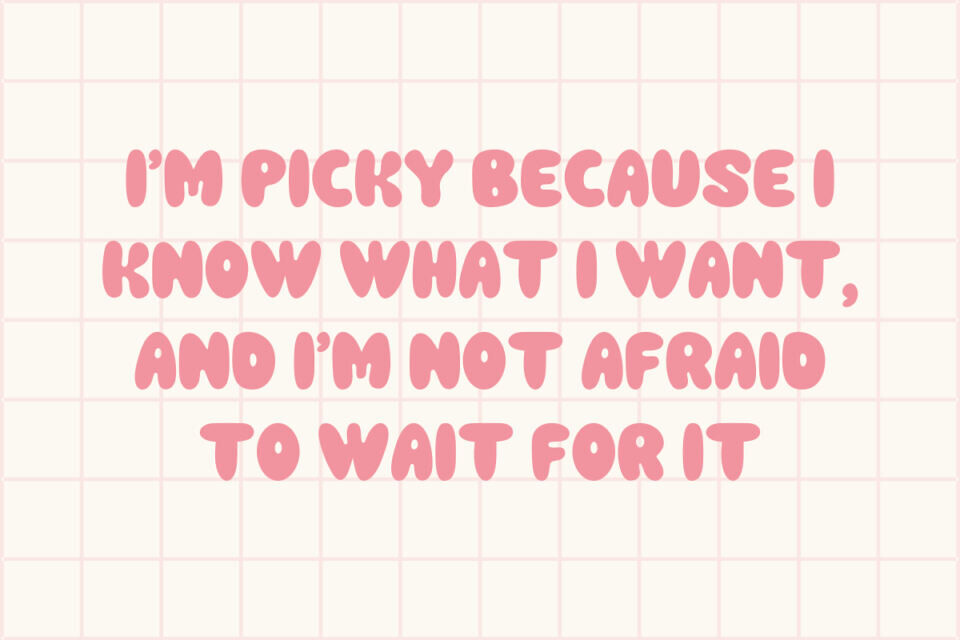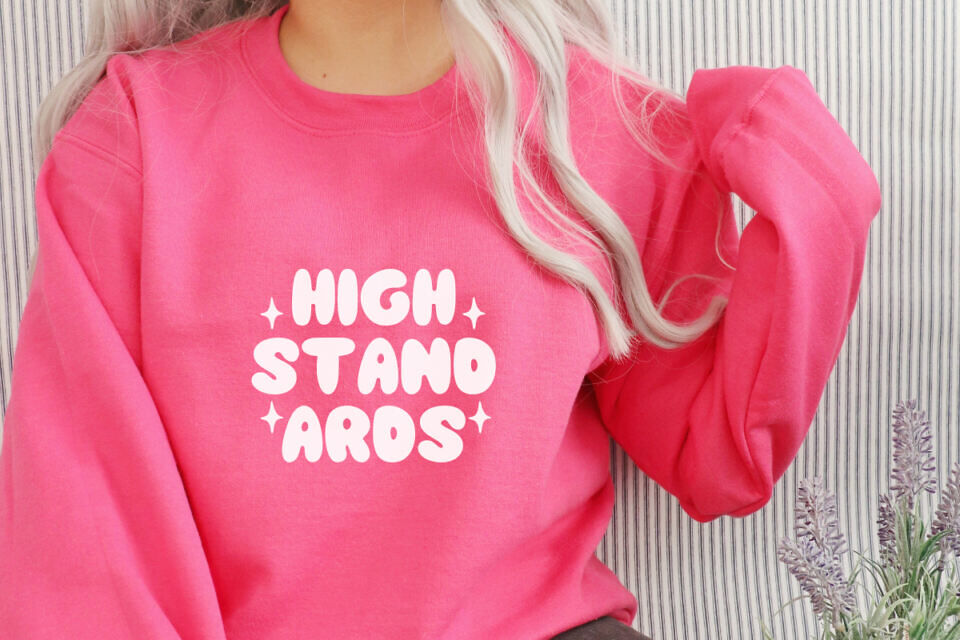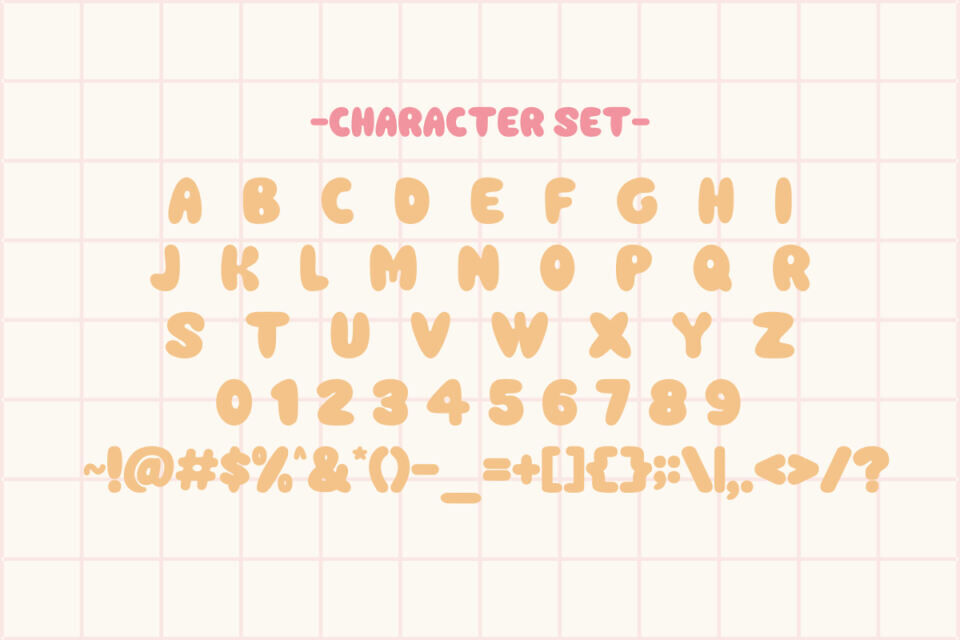
Picky Girls is a modern, bold retro bubble display font. Whether you’re using it for crafts, digital design, presentations, or making greeting cards, this font has the potential to become your favorite go-to font, no matter the occasion!